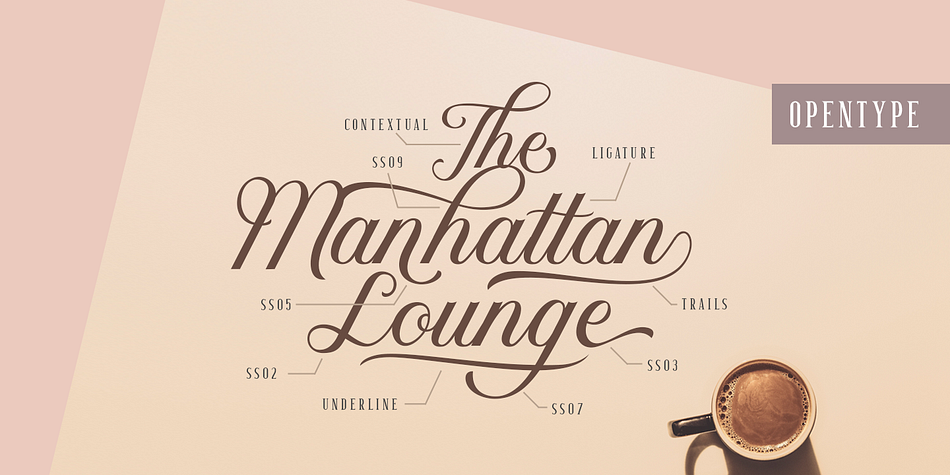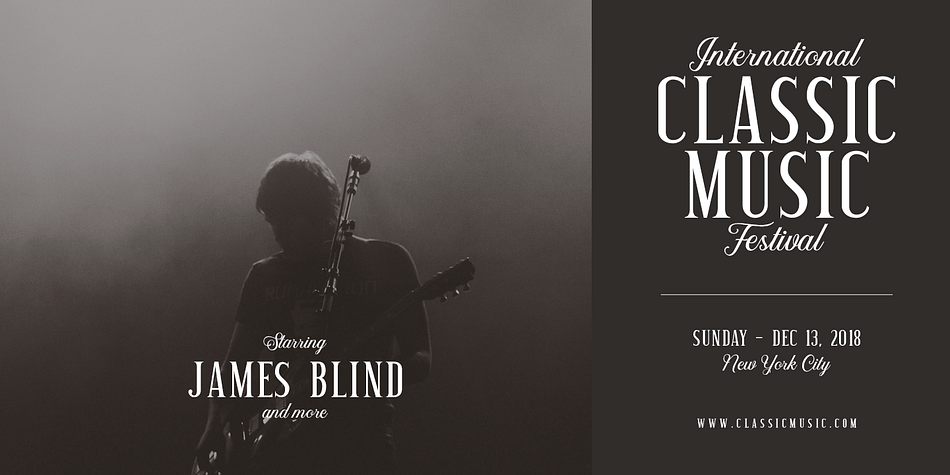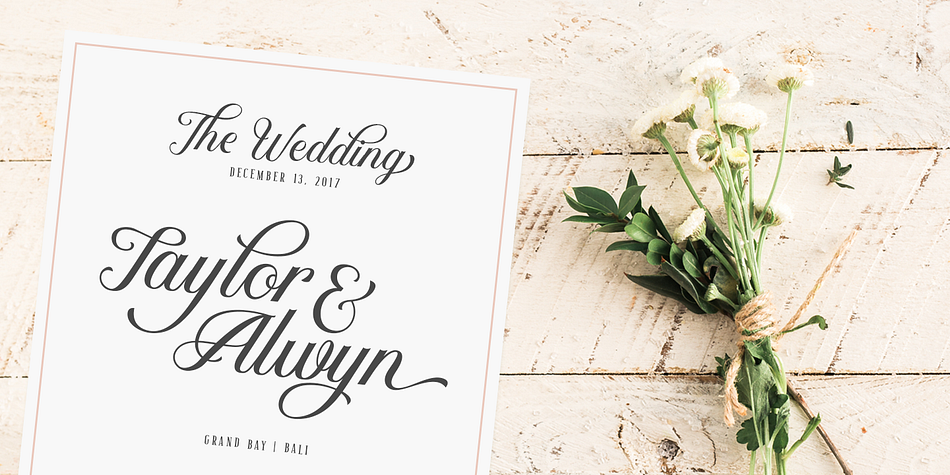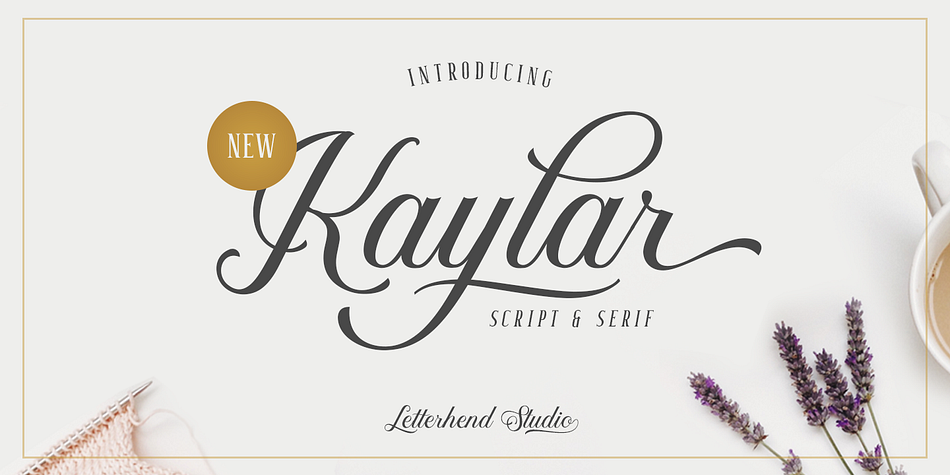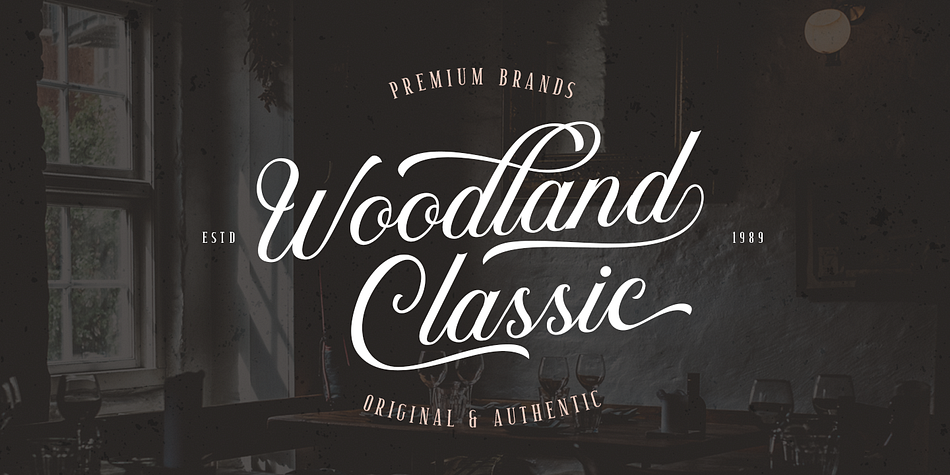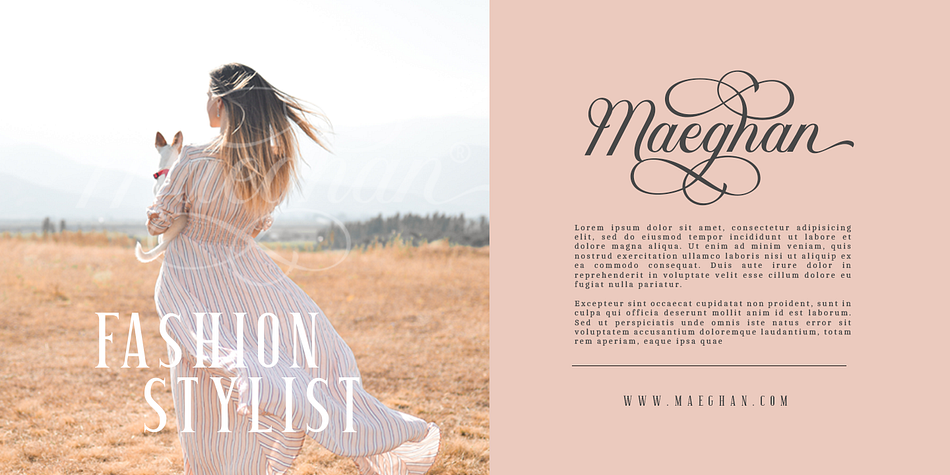
Designed by Hendry Juanda, Kaylar is a display serif and script font family. This typeface has two styles and was published by Letterhend Studio.
Kaylar Script & Serif is a pair of elegant typeface consist of script and serif font. The beauty script and the condensed serif perfectly matched and bring a luxury and classy feel. What makes it even more special is its unique opentype feature which allows you to enable the swash ornament in a very simple way.